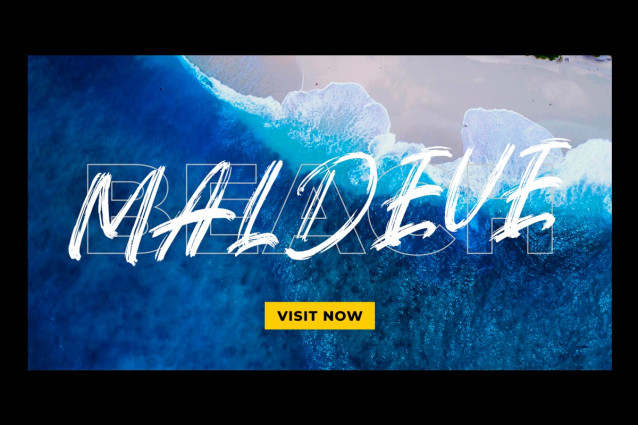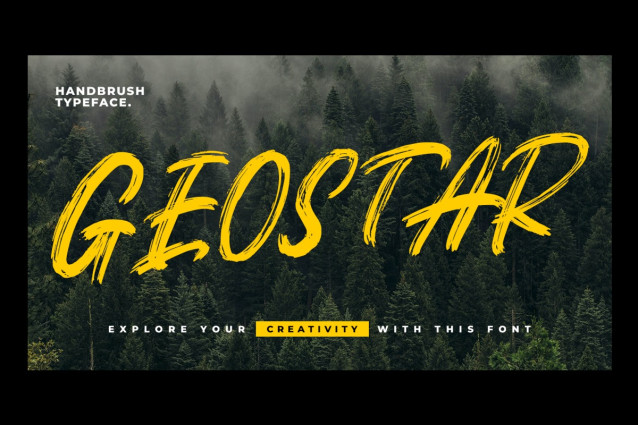
Geostar Brush Font
Geostar Brush Font is a modern brushed display font, incredibly adaptable to all sorts of urban or street related designs. It is suitable for any branding, product packaging, invitation, quote, label, poster, logo that you wish to create.